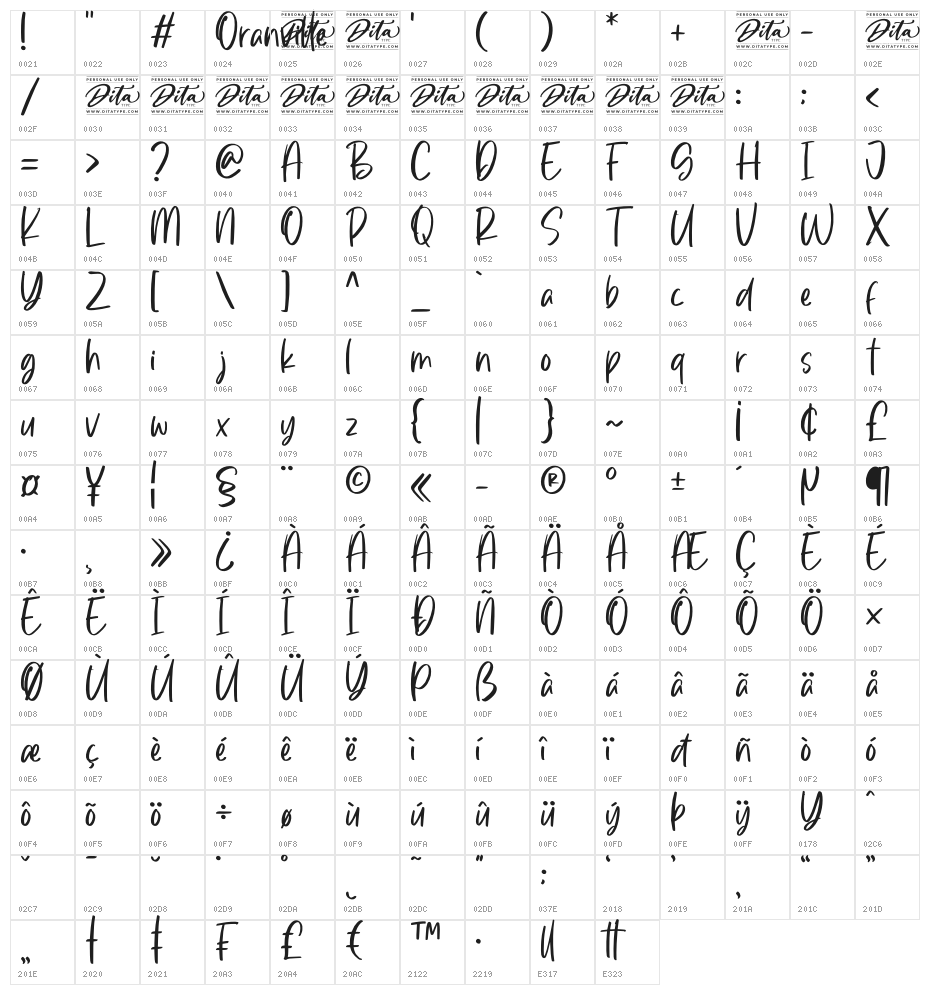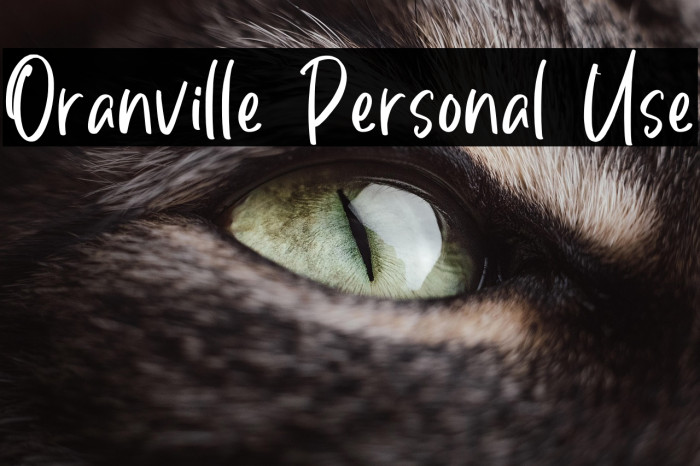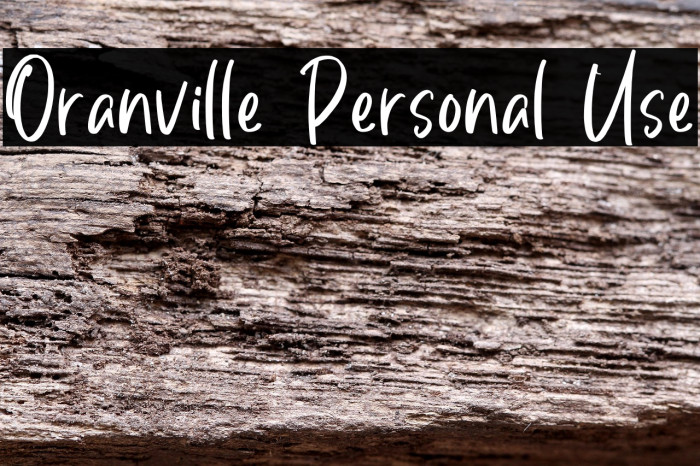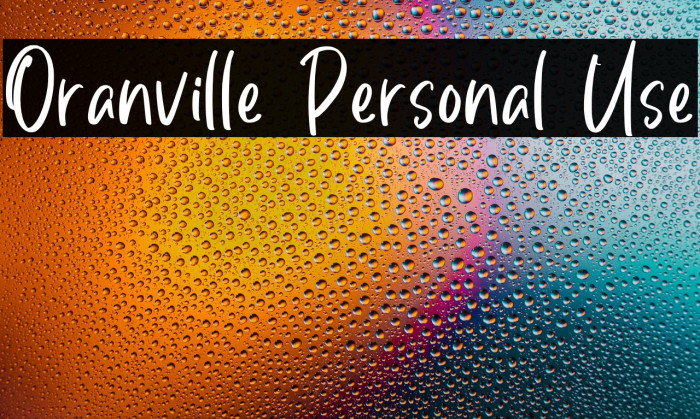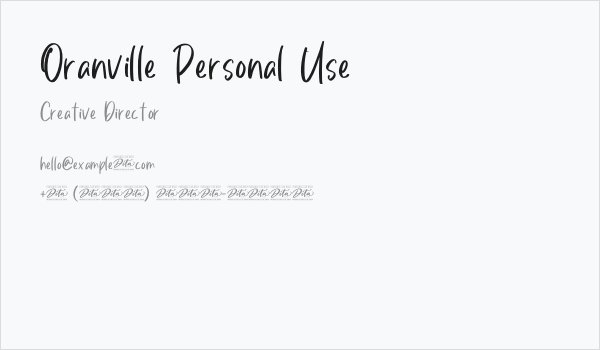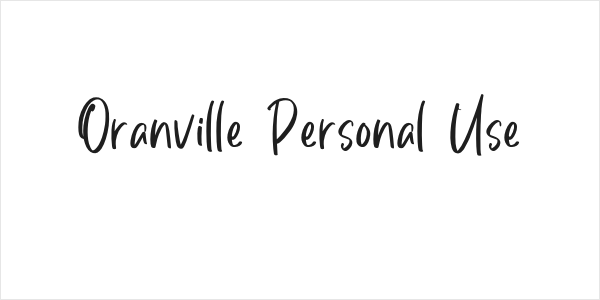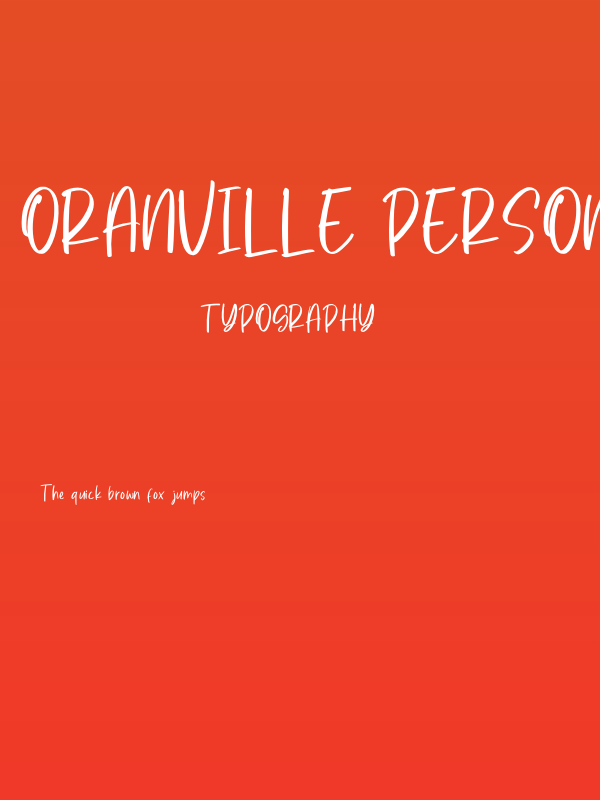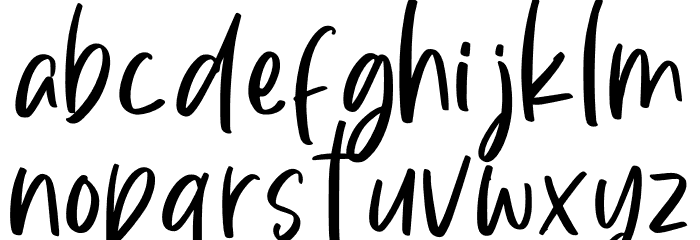
Oranville Personal Use Font
Oranville Personal Use Description
This font features a playful and energetic handwritten style, characterized by its bold and slightly irregular strokes. The uppercase letters are tall and narrow, while the lowercase letters maintain a consistent flow, giving the font a lively and informal appearance. The strokes vary in thickness, adding a dynamic quality to the text. The special characters complement the overall style, maintaining the same playful and casual feel. This font is ideal for projects that require a personal touch, such as invitations, greeting cards, or creative branding.
| Overall Style | Playful, Casual |
| Proposed Projects | Ideal for invitations, greeting cards, creative branding, and personal projects. |